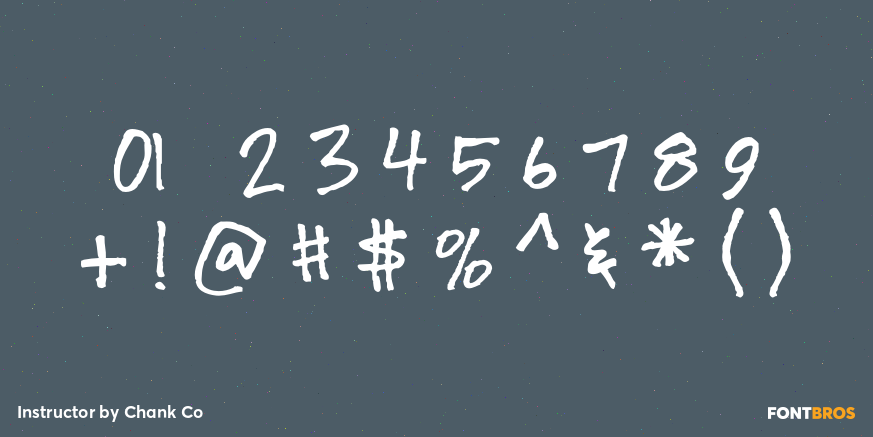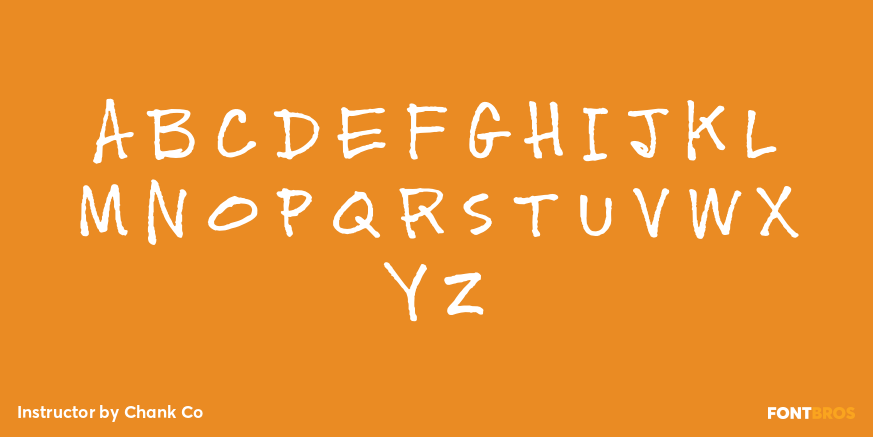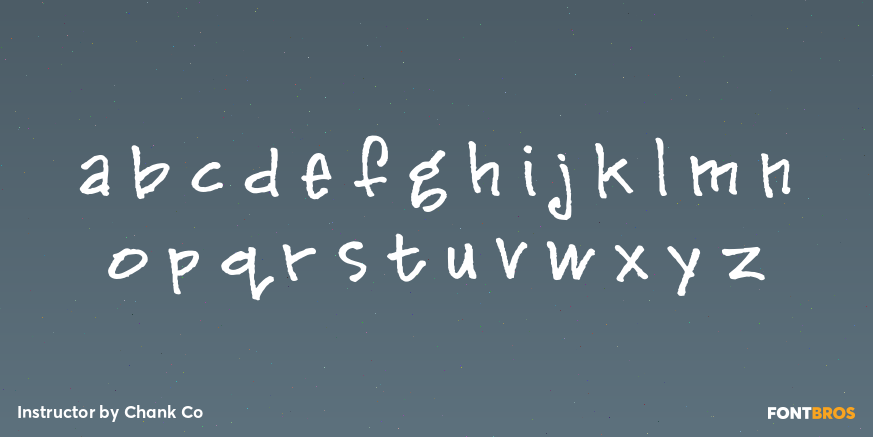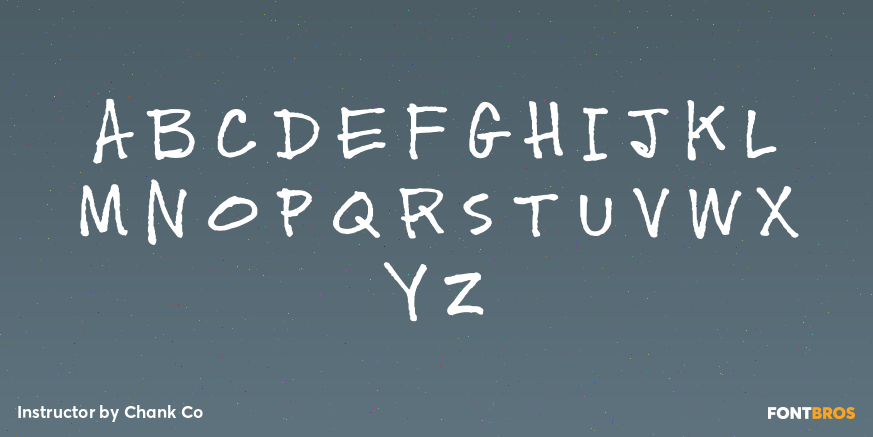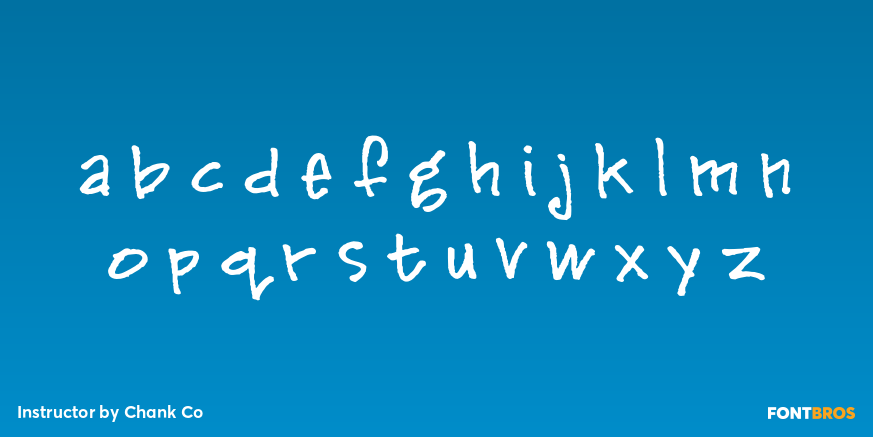
Instructor
Font Family by Chank Co
Instructor was drawn Roger Lootine and fontified by Chank. Roger is an instructor at Art Instruction School. You know the "Draw Tippy the Turtle" ads? That's where Roger teaches. He also draws a cool comic called Residue. "Roger's got the best handwriting I've ever seen, and you can download it today!" says Chank.